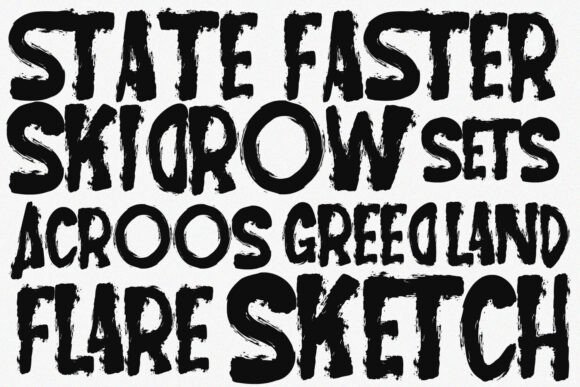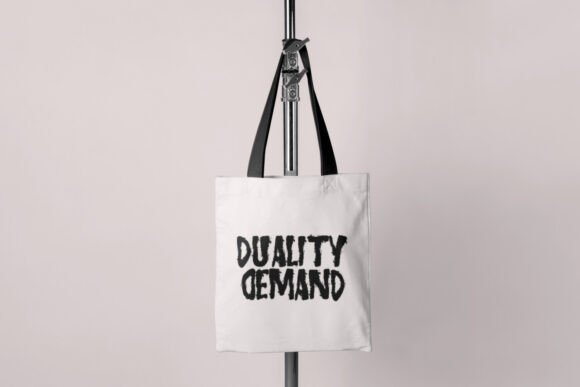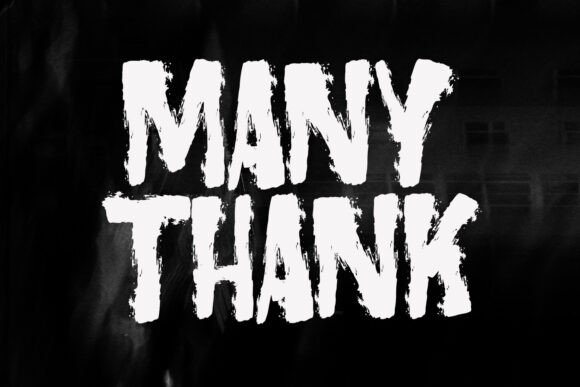
Blaked Lion Font
Blaked Lion is a fierce and rugged display font with a raw, hand-painted brush texture. Its bold strokes and distressed edges make it perfect for edgy designs, including posters, album covers, sports branding, and urban-style artwork. This font commands attention and adds a rebellious, energetic vibe to any project.